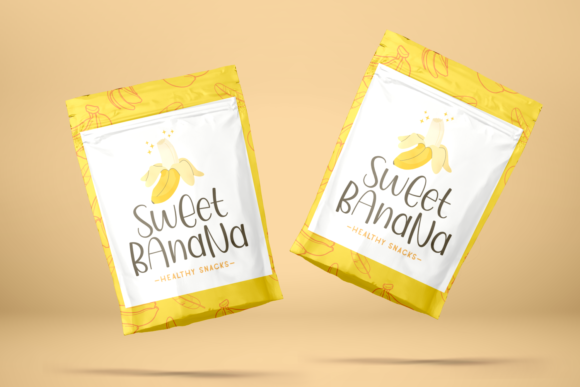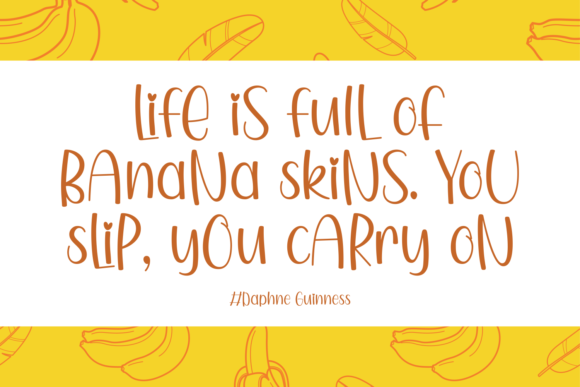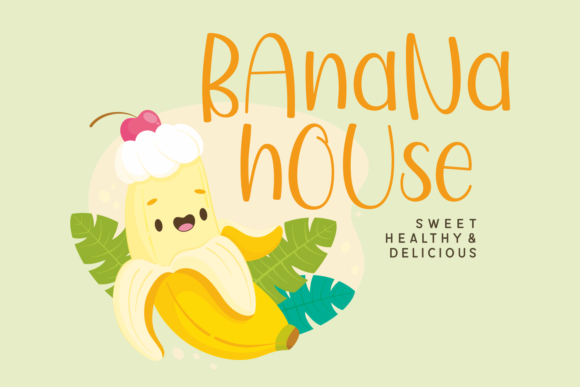
Discover the Sweet Charm of Banana Creams Font
We’ve all been there – staring at a blank canvas, waiting for inspiration to strike. The cursor blinks, and our minds go blank. But what if we told you that there’s a font that can spark creativity and bring a smile to your face? Introducing the adorable Banana Creams Font, a delightful display font that’s perfect for adding a touch of whimsy to your chalkboard quotes, teaching materials, and crafts.
Whether you’re a designer, crafter, or educator, Banana Creams Font is an invaluable addition to your toolkit. Its playful charm and versatility make it an ideal choice for digital designs, presentations, greeting cards, and more. With its unique character, this font has the potential to become your go-to favorite, and we can’t wait to see what you create with it!
Banana Creams Font Key Features
- Font Family: Banana Creams is a unique, hand-drawn font that offers a distinctive and playful aesthetic.
- Character Count: The font includes a wide range of characters, including uppercase and lowercase letters, numbers, and punctuation marks.
- Unique Characteristics: The font features a range of unique flourishes and ornaments, including banana-shaped decorations and other whimsical elements.
Review of Banana Creams Font
I recently had the chance to work with the Banana Creams Font, and I must say it’s a unique and quirky addition to any design project. ✨ The font’s playful, handwritten feel is sure to add a touch of whimsy to your work.
- The Banana Creams Font’s irregularities and imperfections make it feel very organic and natural, which can be a great fit for projects that need a more relaxed or casual tone.
- The font’s wide range of weights and styles make it highly versatile and easy to use in a variety of contexts.
- Overall, I think the Banana Creams Font is a great choice for designers looking to add some personality to their work.
However, I do have a few concerns about the font’s limitations. ⚠️ The Banana Creams Font can be a bit difficult to read at smaller font sizes, and the irregularities that make it so charming can also make it harder to use in certain contexts.
Overall, I think the Banana Creams Font is a solid choice for designers who want to add some personality to their work. While it may have some limitations, its unique feel and wide range of styles make it a great fit for many projects.
To get the most out of Banana Creams Font, consider the following tips:
- Use it for creative and playful designs, such as invitations, social media graphics, and advertisements.
- Pair it with bold and bright colors to create a fun and eye-catching look.
- Experiment with different font sizes and styles to add depth and interest to your designs.
Banana Creams Font is commonly used for:
- Social media graphics and posts.
- Invitations and event promotions.